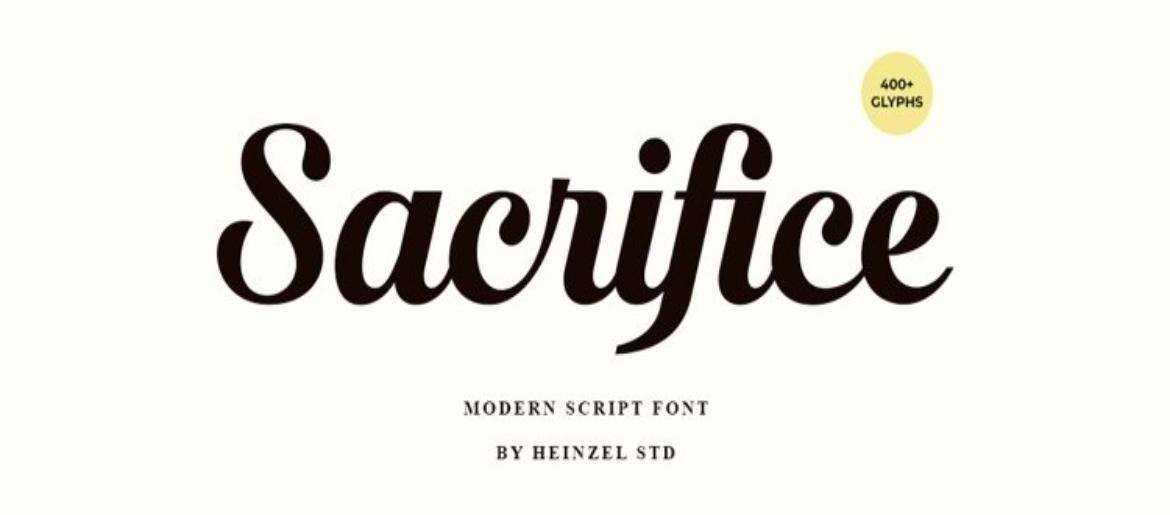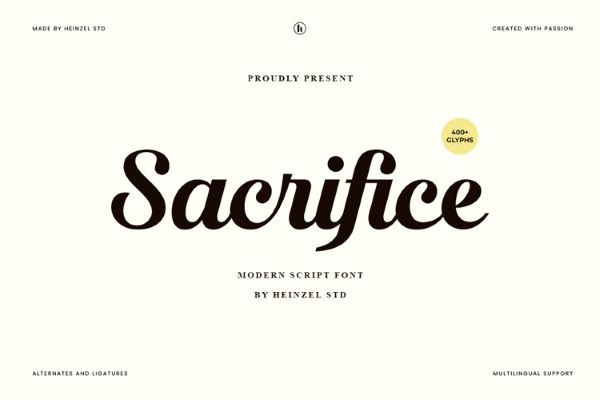
Sacrifice Font
Sacrifice Font is a modern retro typeface that blends vintage inspiration with contemporary styling. Its bold shapes and nostalgic character make it ideal for logos, posters, album covers, and branding projects that aim to capture a stylish throwback feel with a modern edge.
➤ Font Name: Sacrifice
➤ Designer: Heinzel Studio
➤ Style: Modern Retro